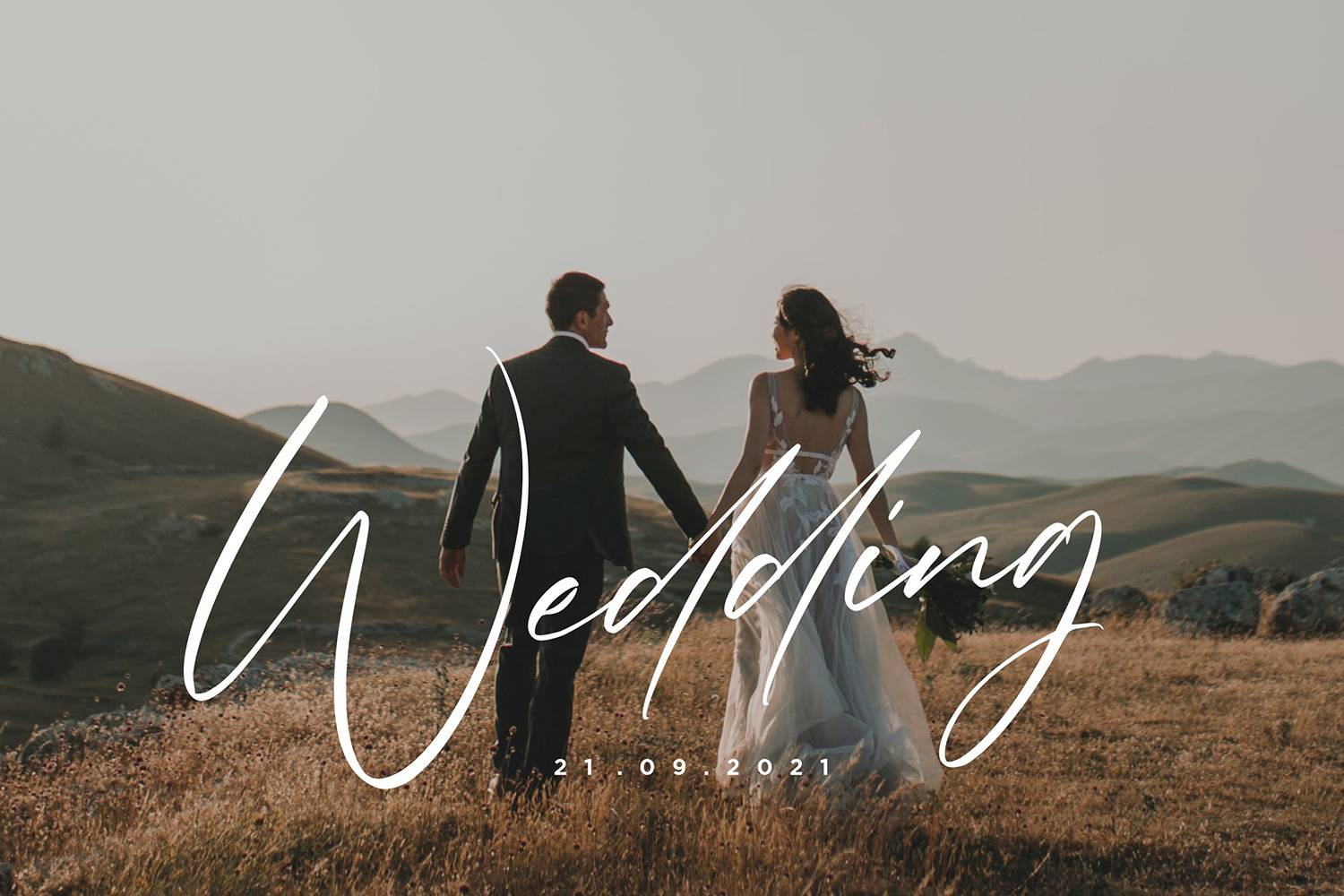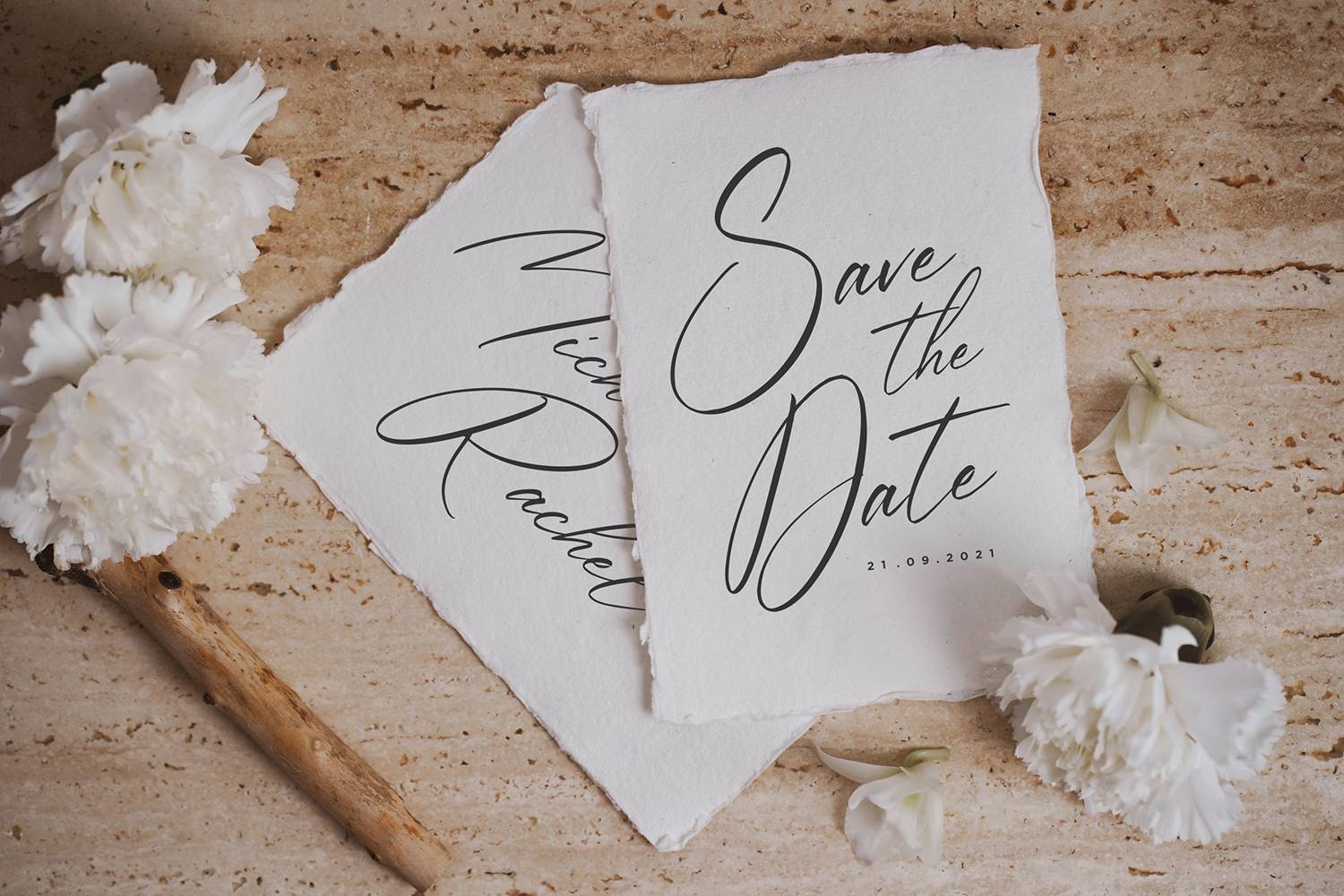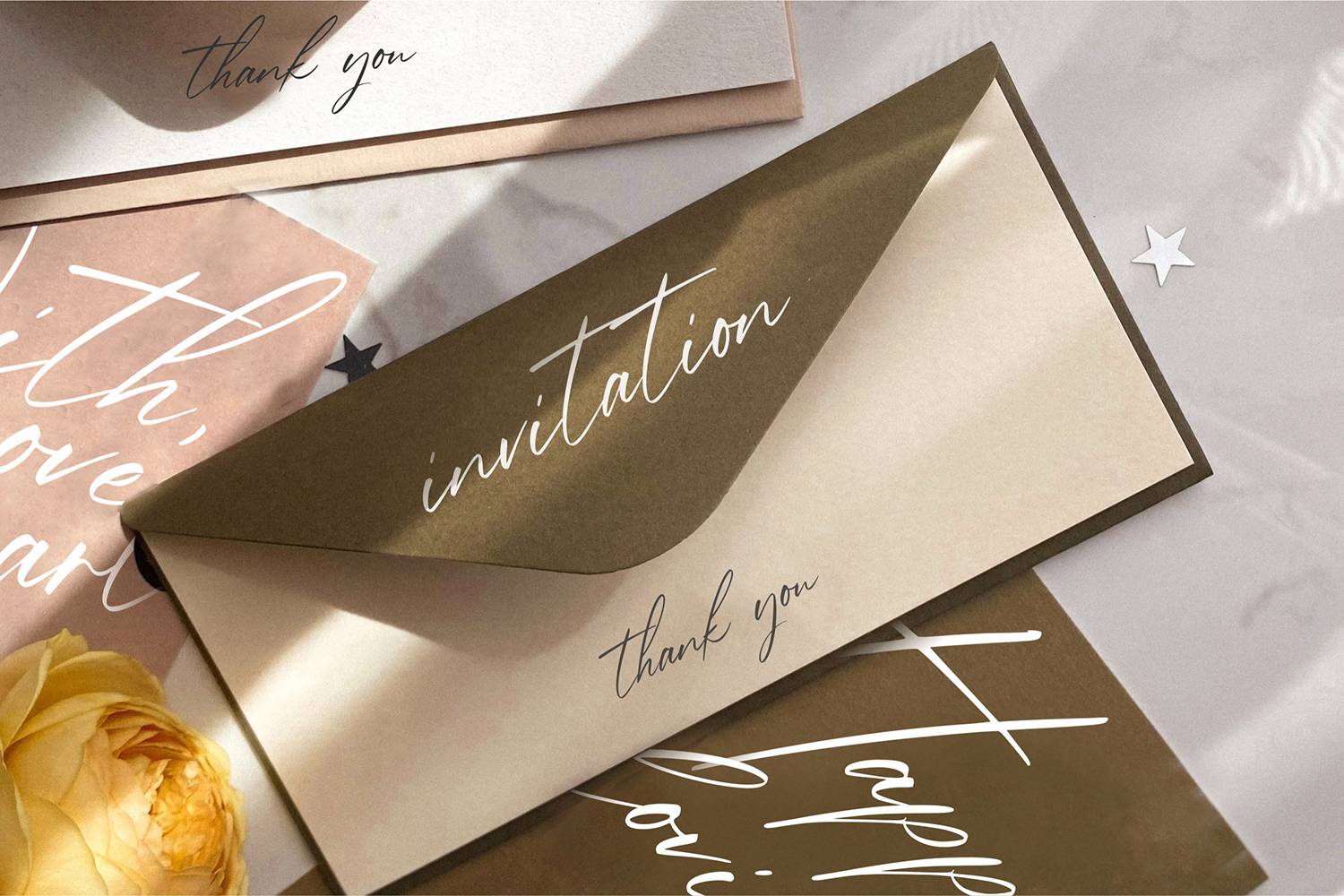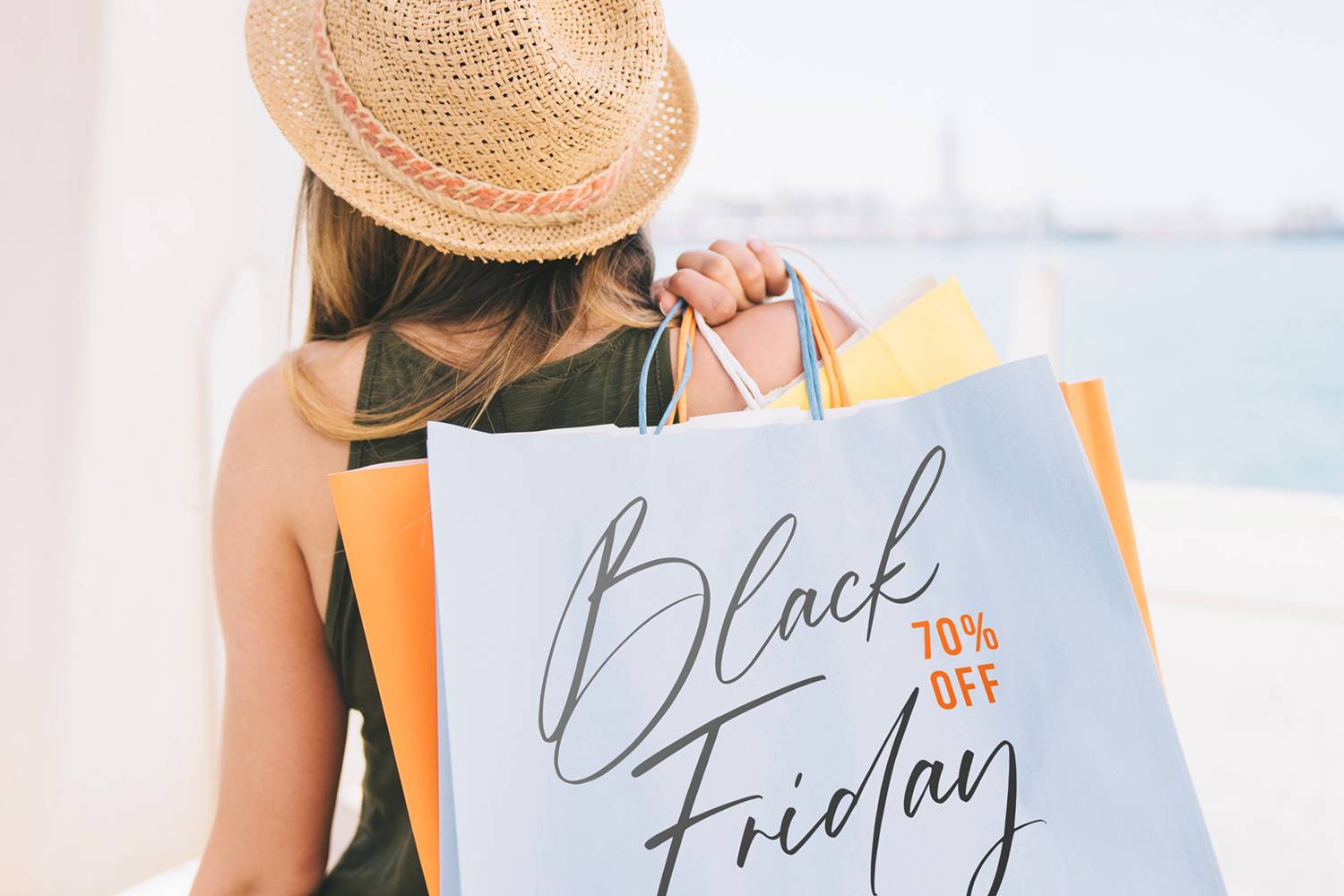
Jacquelina is a delicate, elegant script font characterized by its thin, flowing strokes and high-contrast lines that mimic graceful handwriting. With its slender letterforms and casual yet refined style, it works beautifully for invitations, branding, and editorial pieces that seek a personal, sophisticated touch. This font shines in settings where a light, airy, and artistic feel is desired, making it perfect for luxury, fashion, and creative projects.
Jacquelina Font
About Jacquelina Font